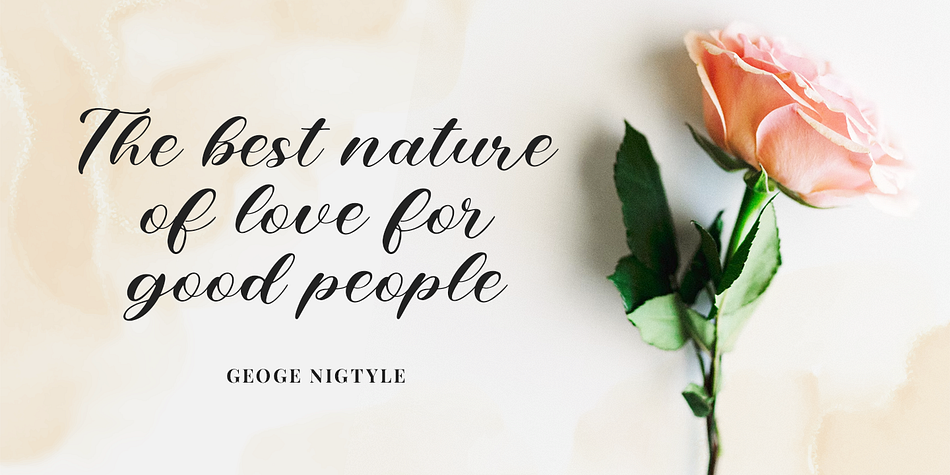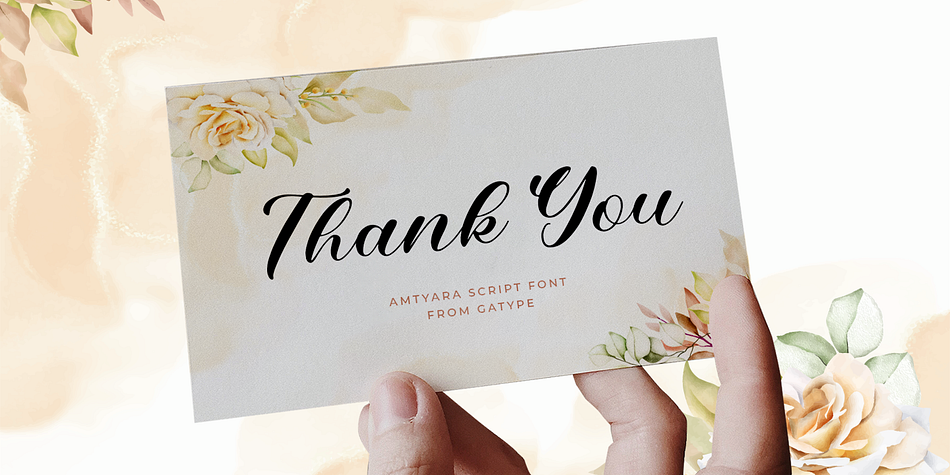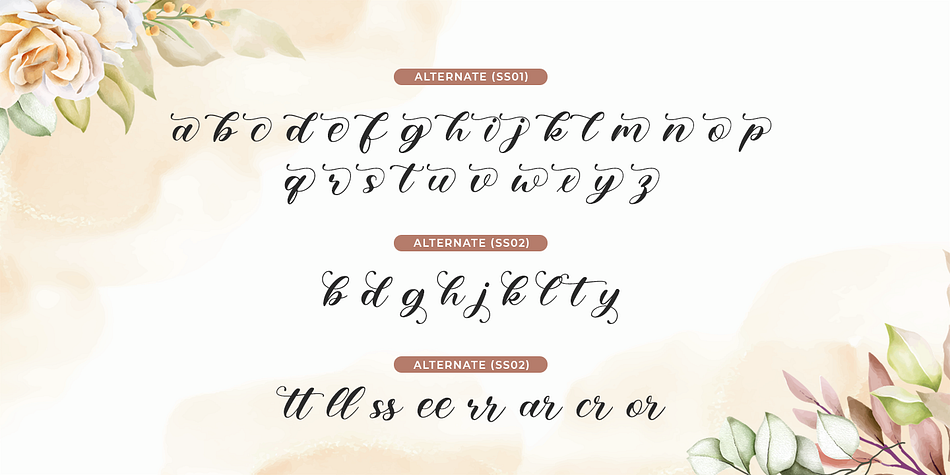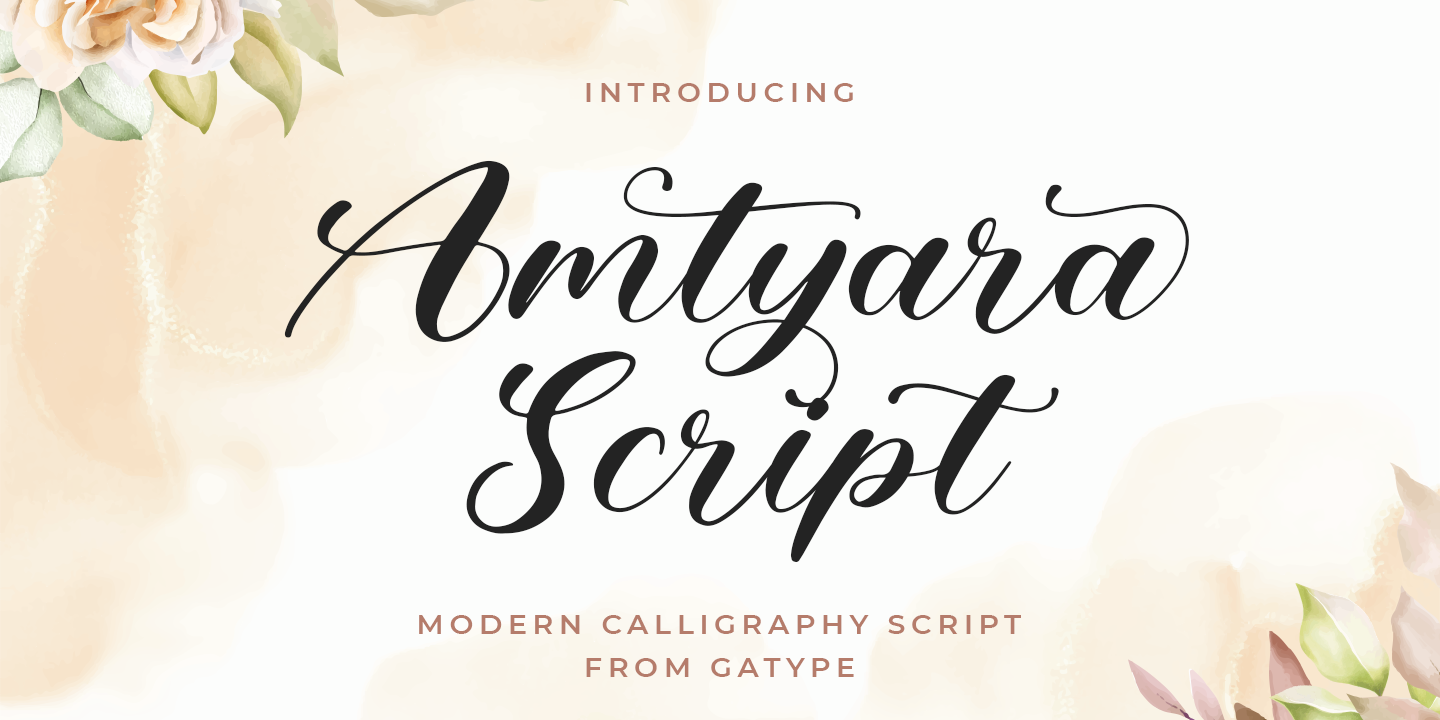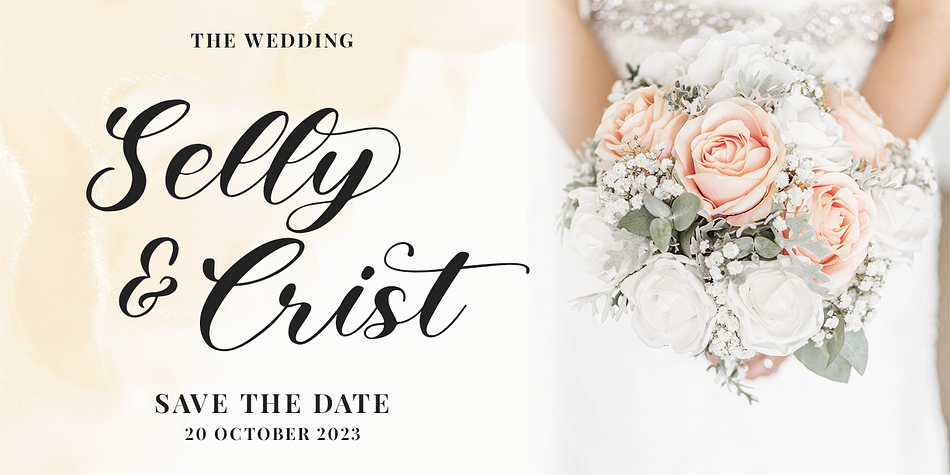
Amtyara
Amtyara is a modern calligraphy font family published by Gatype.
Amtyara Script is a modern calligraphy design. This font is elegant and beautiful with a stroke. Can be used for various purposes. such as logos, product packaging, wedding invitations, branding, headlines, signage, labels, signatures, book covers, posters, quotes and others.